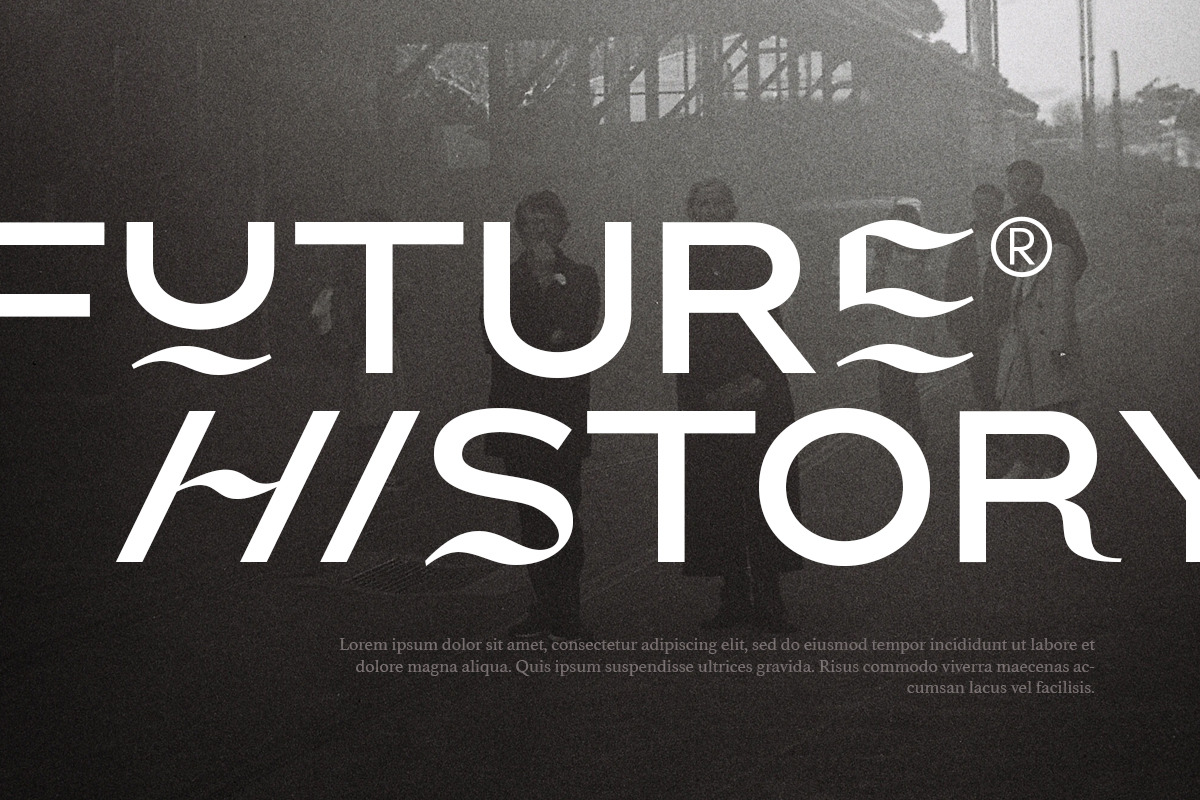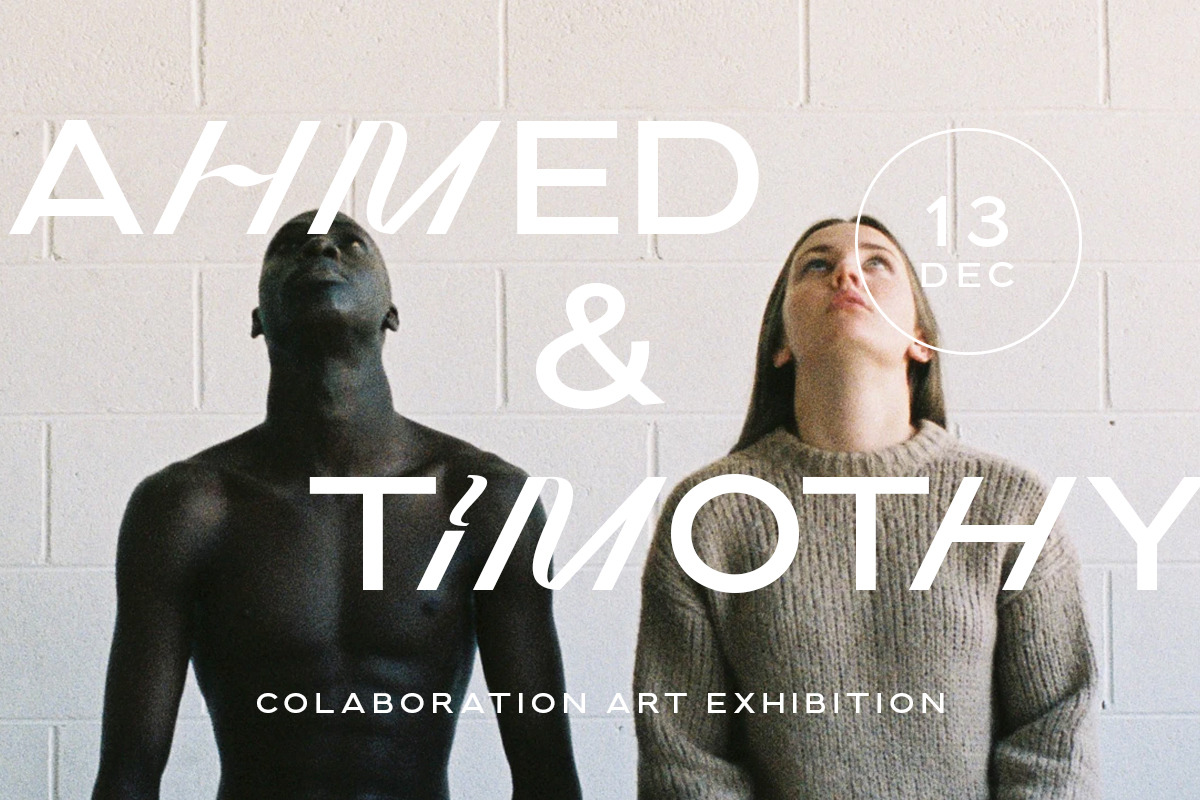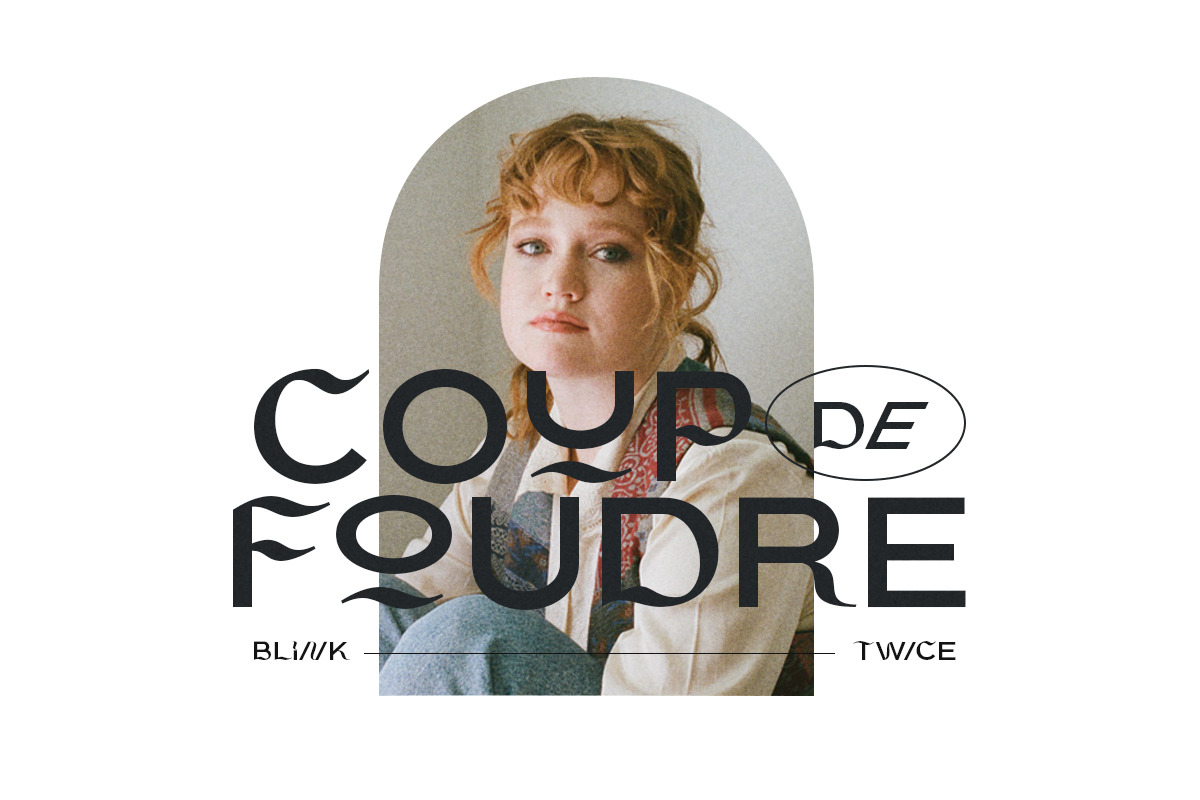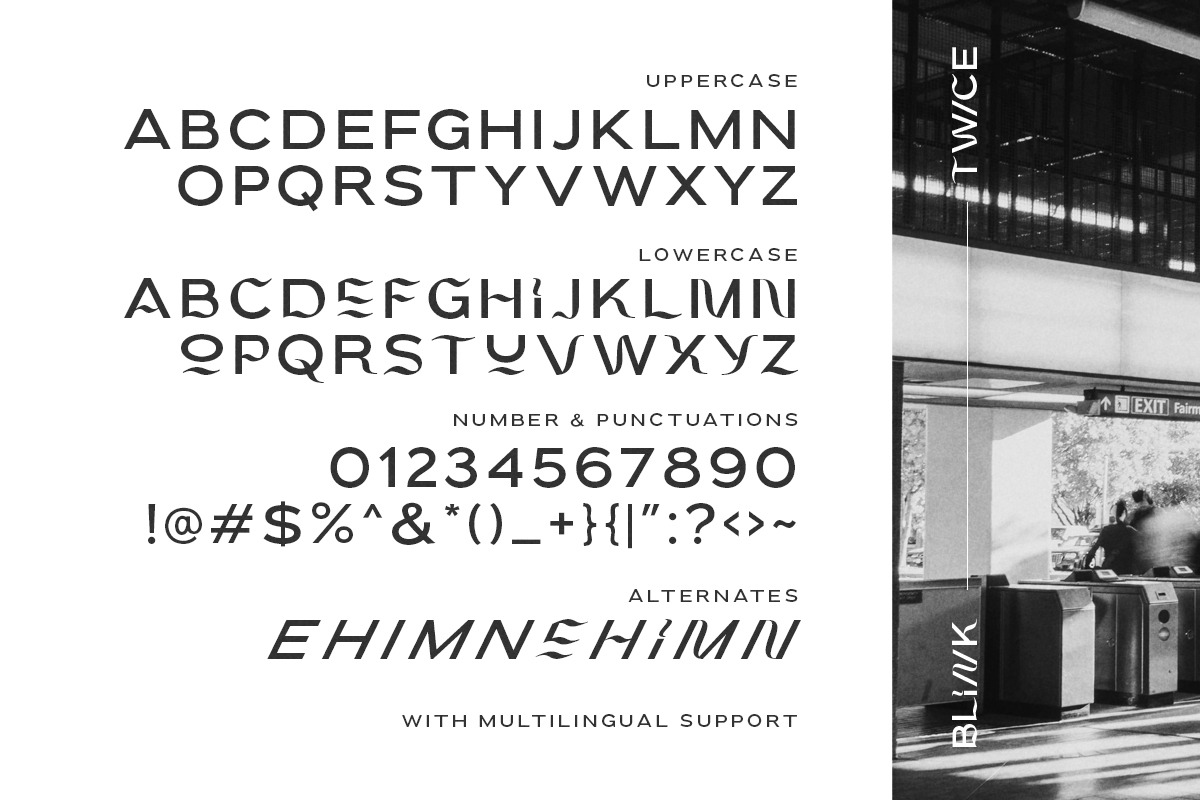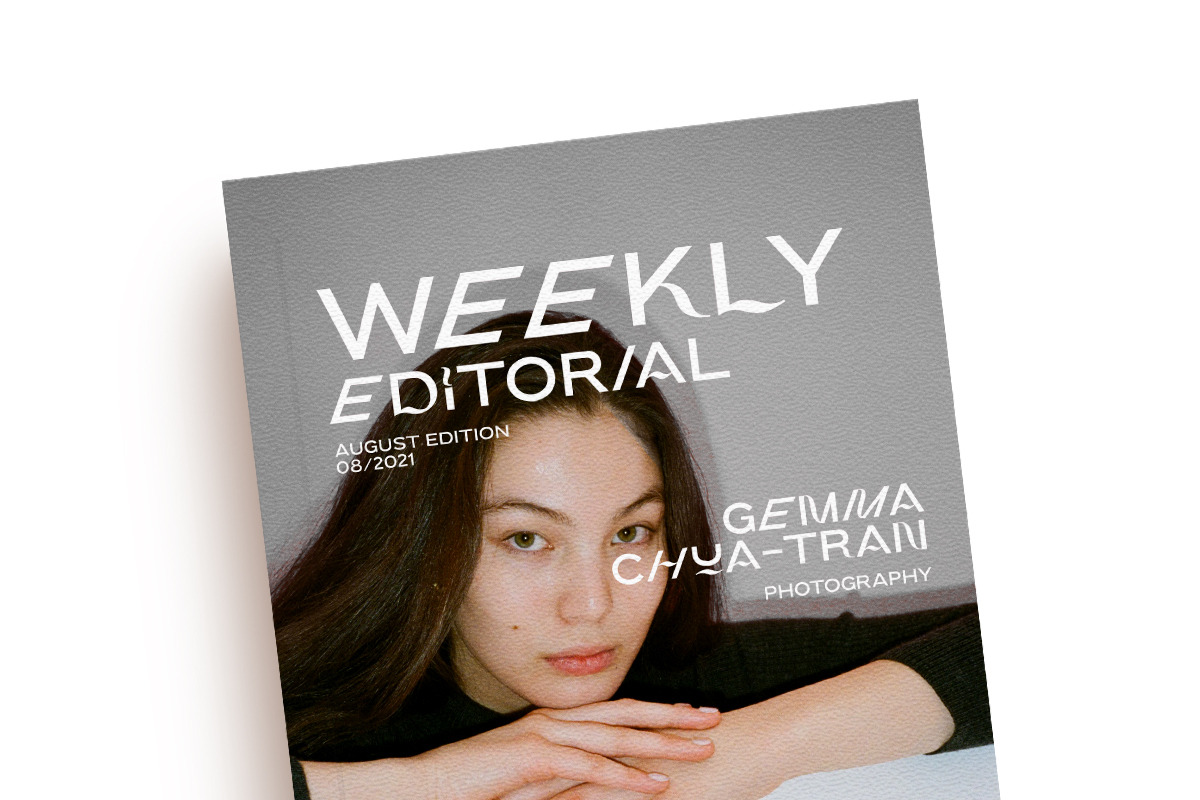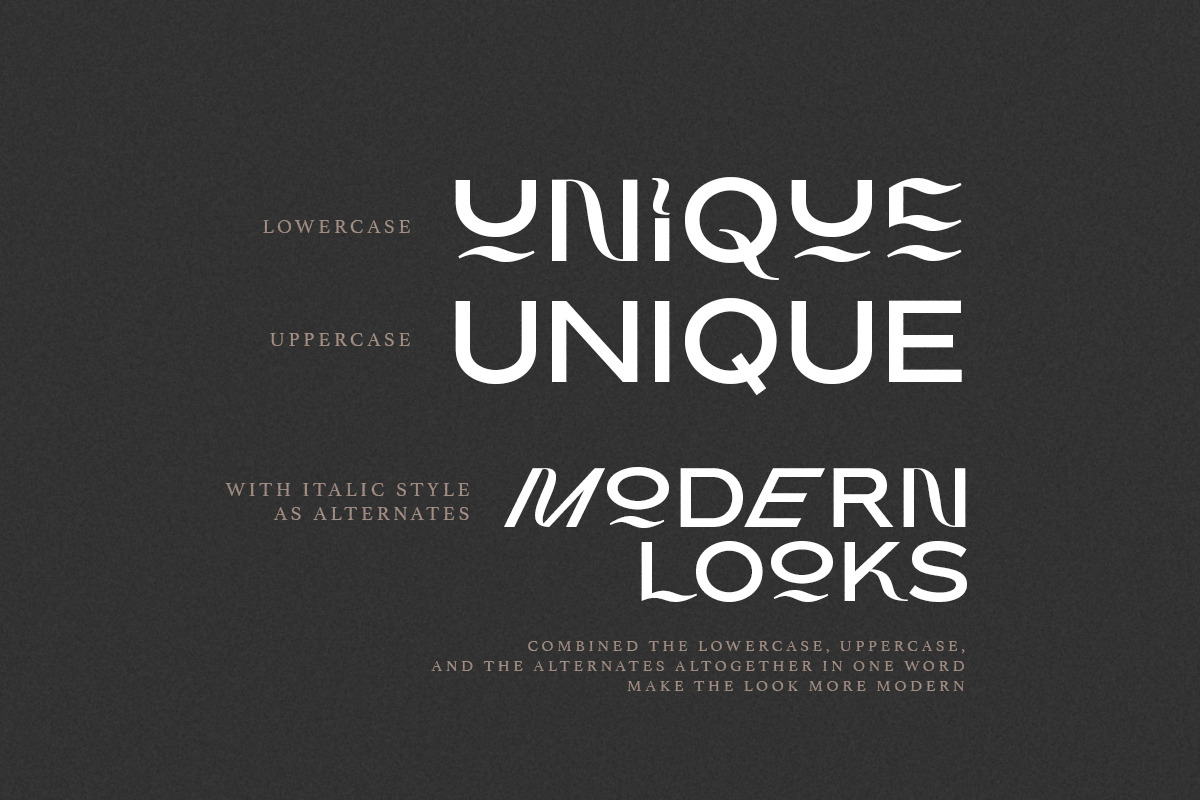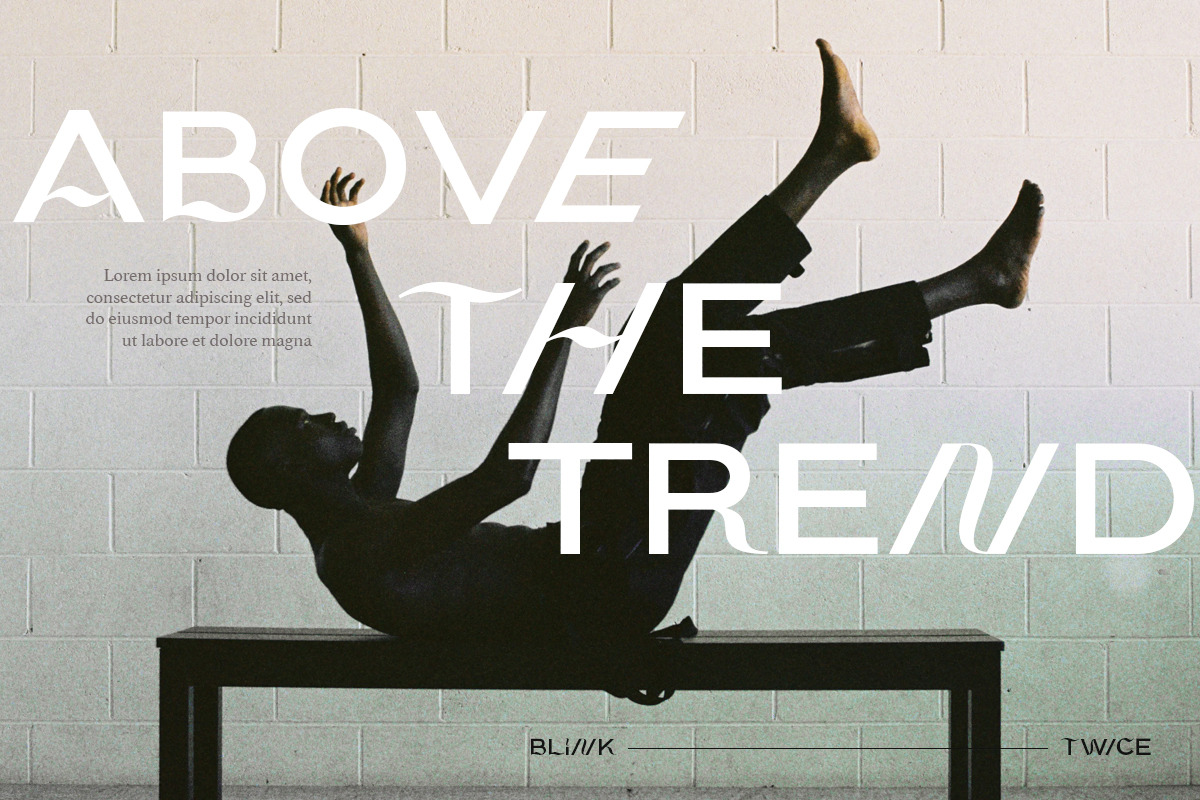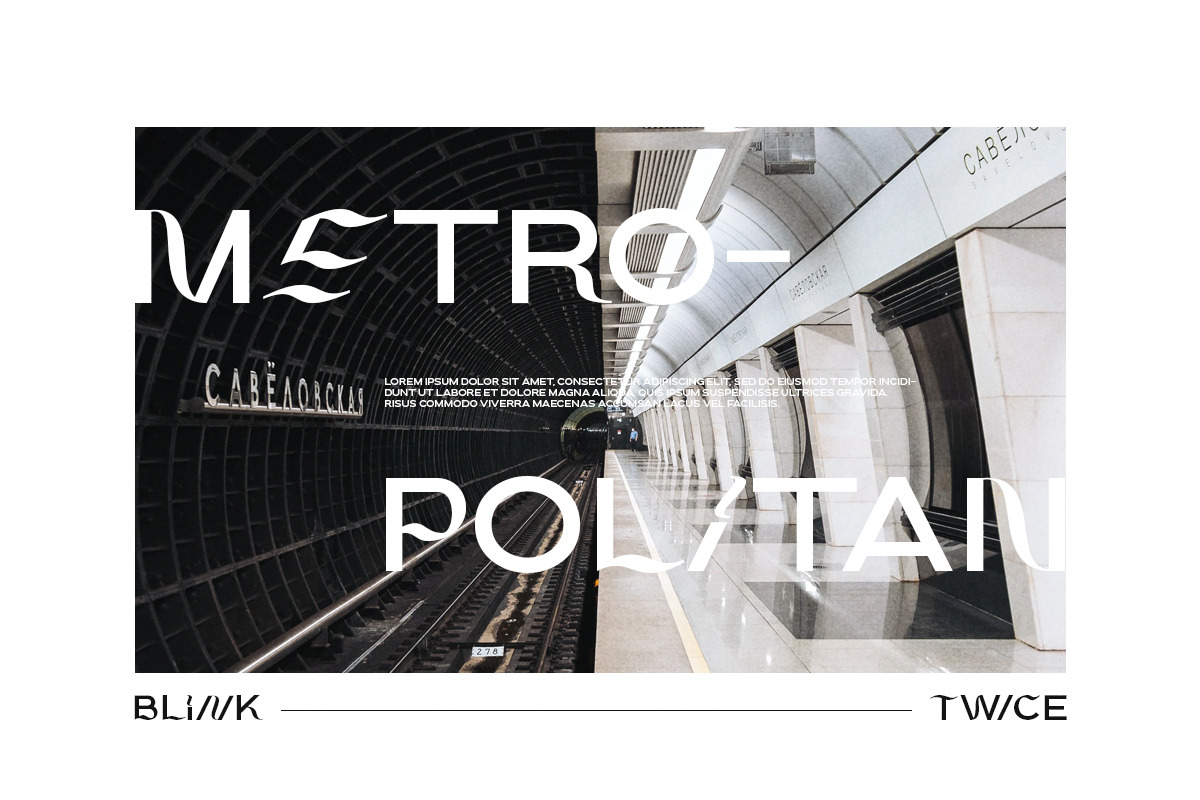
Blink Twice - Unique Sans
Introducing, Blink Twice, a unique sans with styled lowercase!
Blink Twice is a modern and stylish font based sans that have unique looks. This font contains uppercase and lowercase that have different form. You can use the lowercase and uppercase in the same word that will make your text more stand out! And the best of this font is the italic version as the alternates which mean you can combine it all without worrying about the kerning! You can use this font for the magazine, poster, and suitable for headline. This font also support multi language.
- All Caps Font with different uppercase and lowercase
- Italic version as the alternates (E H I N M e h i n m).
- Well Kerned.